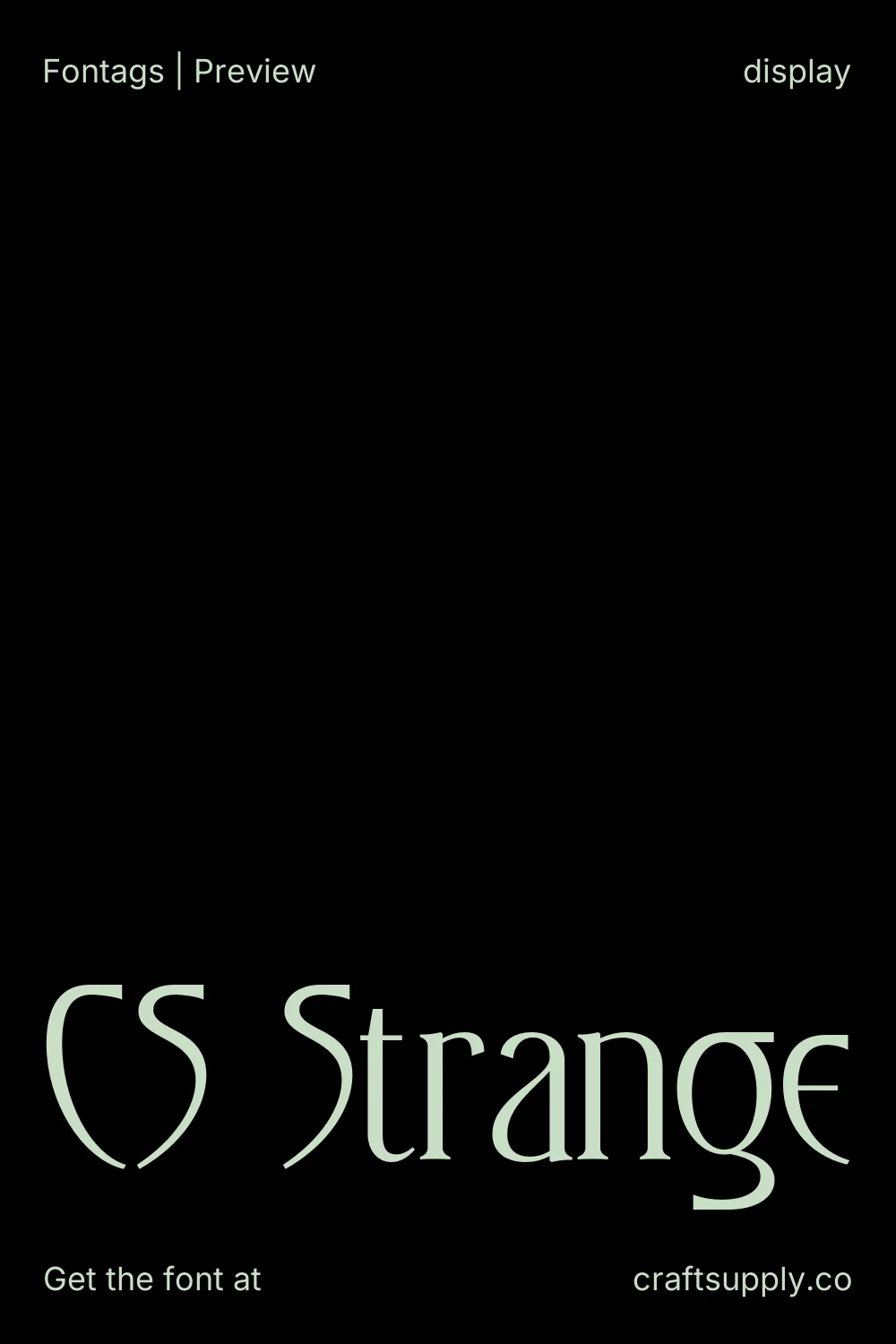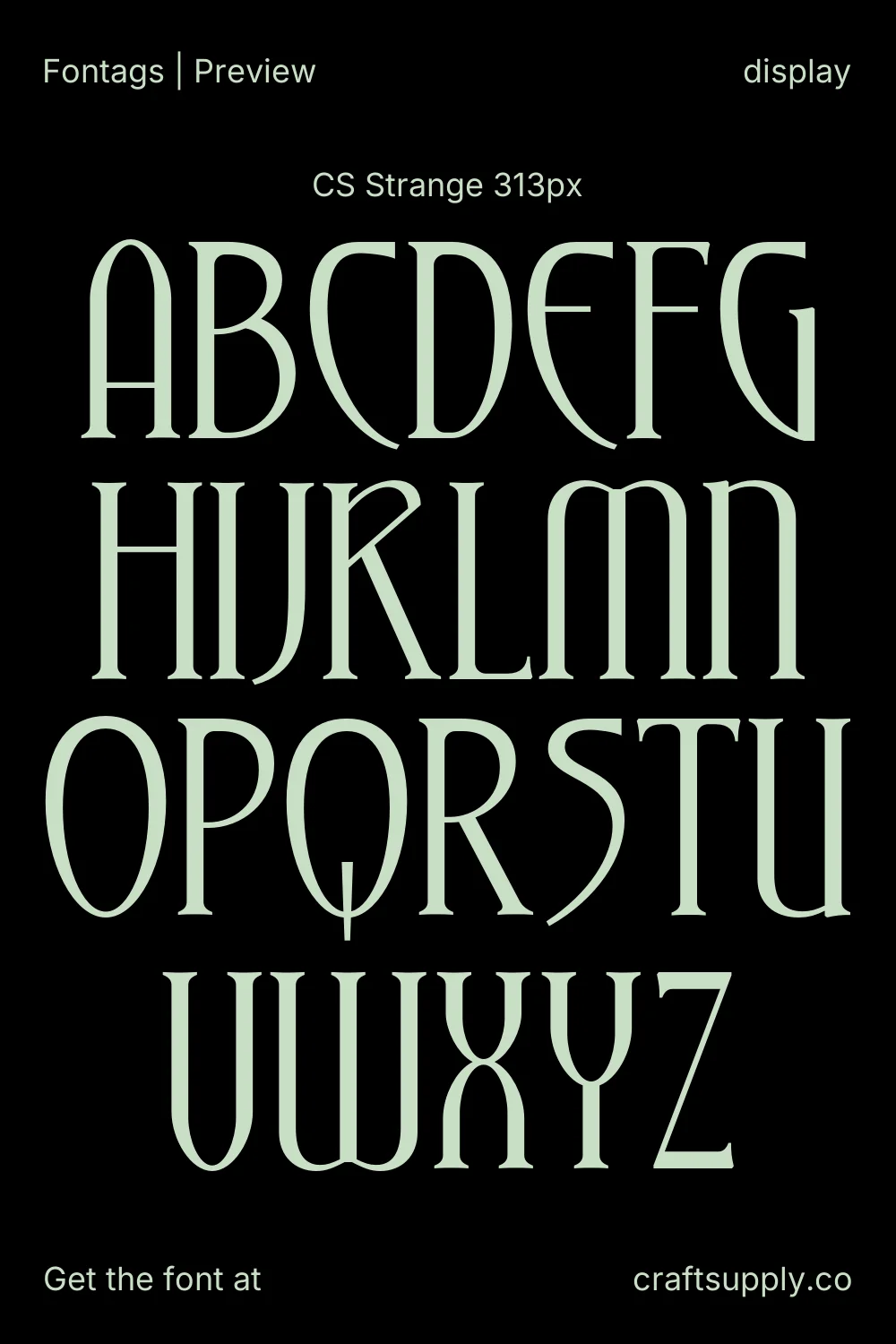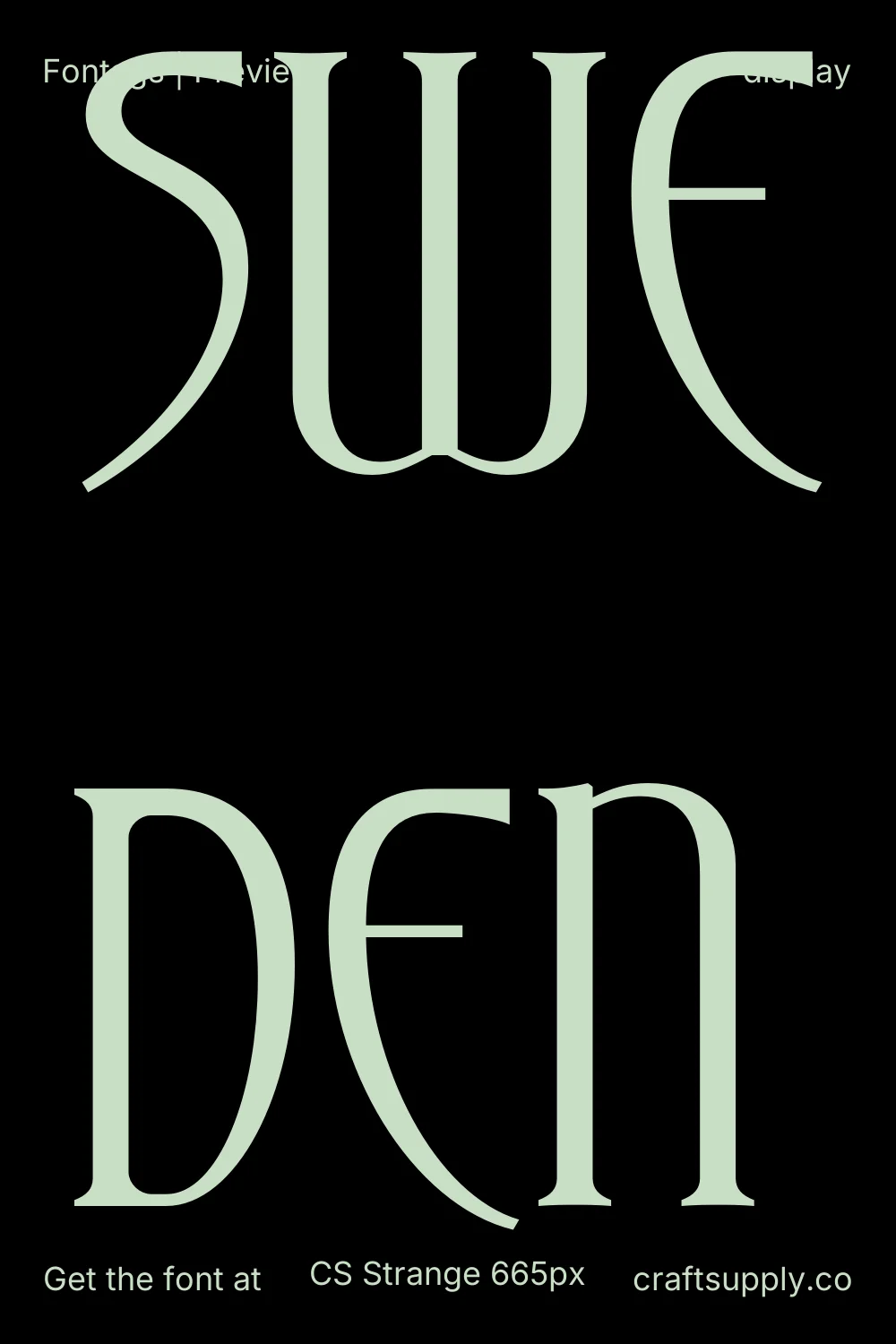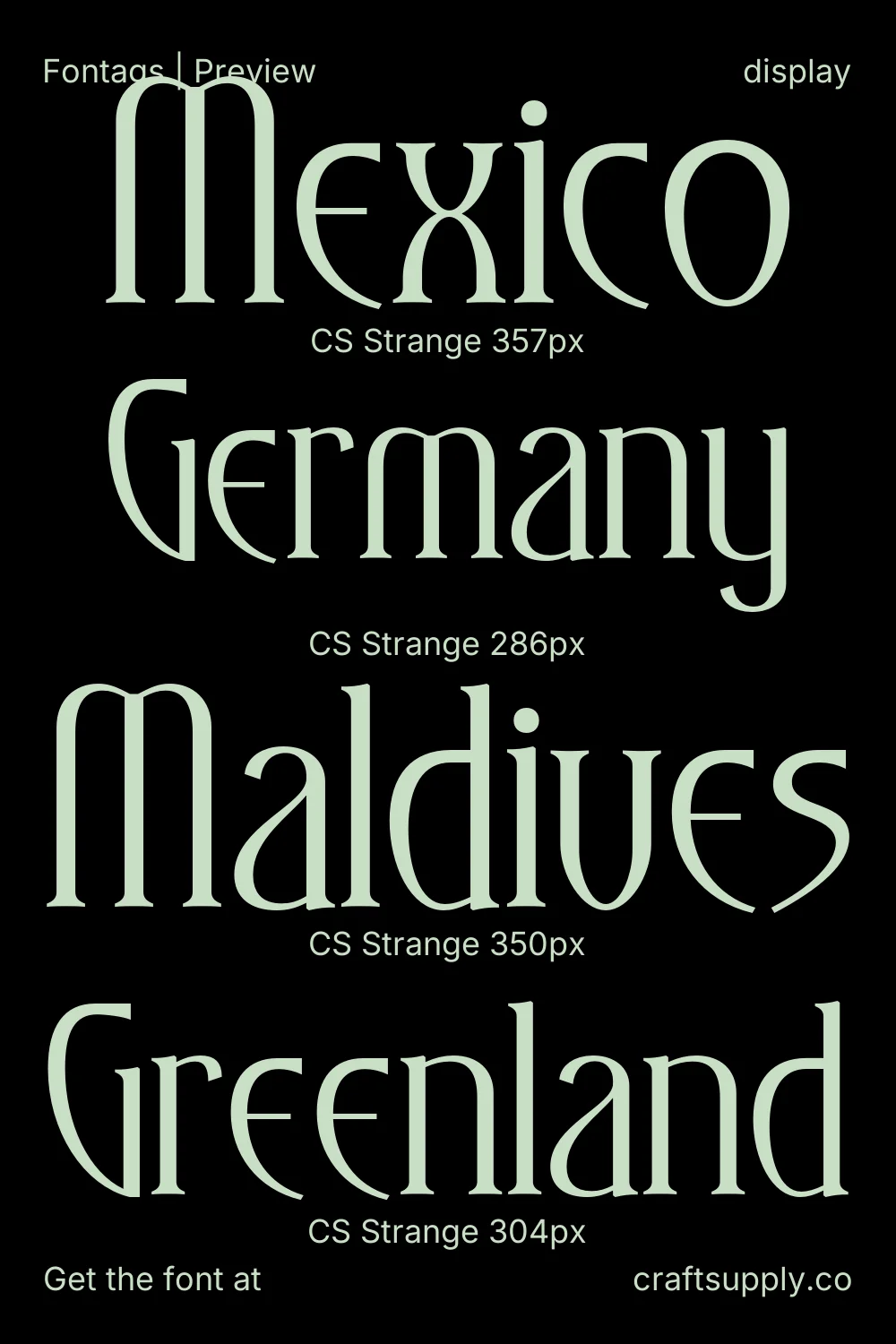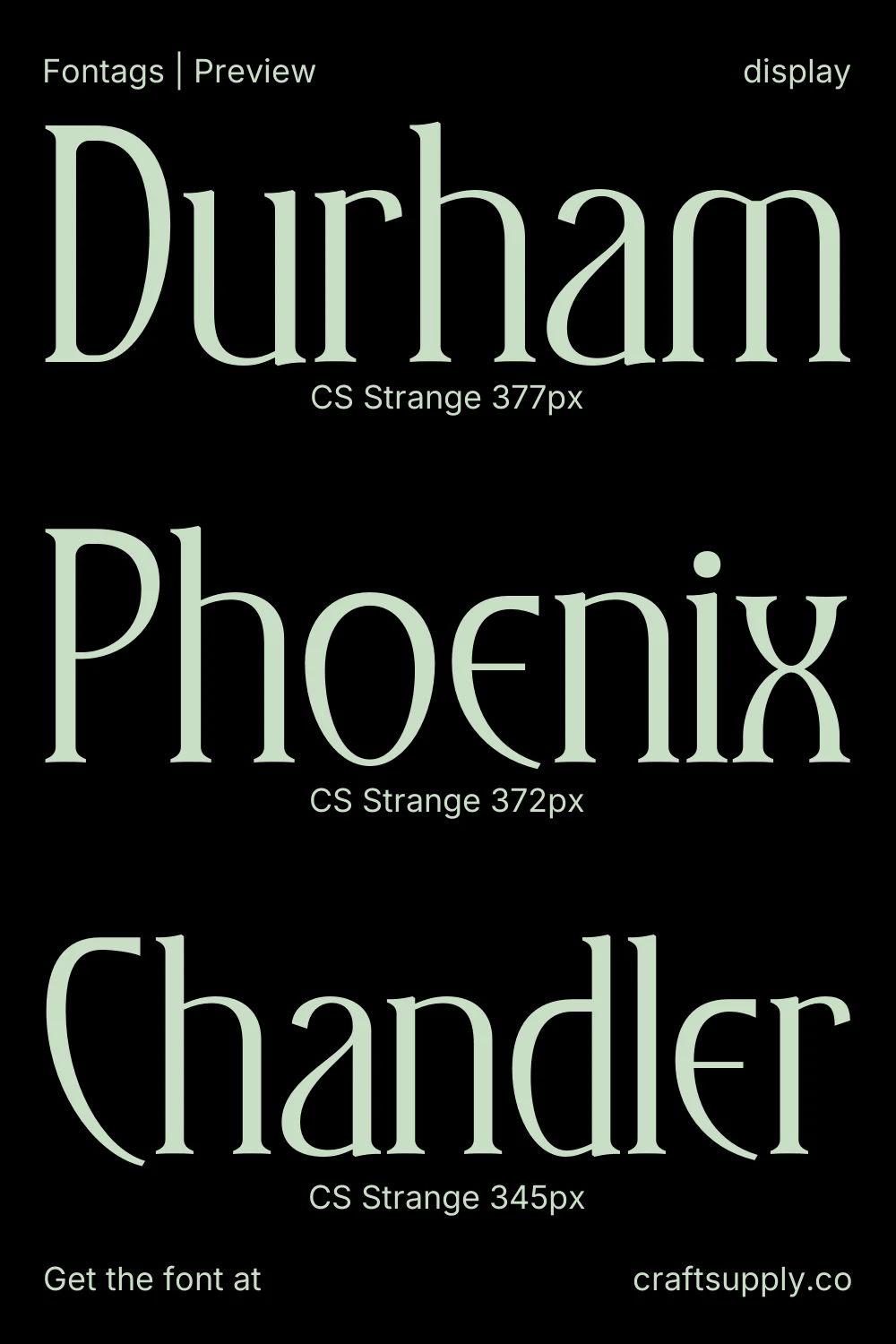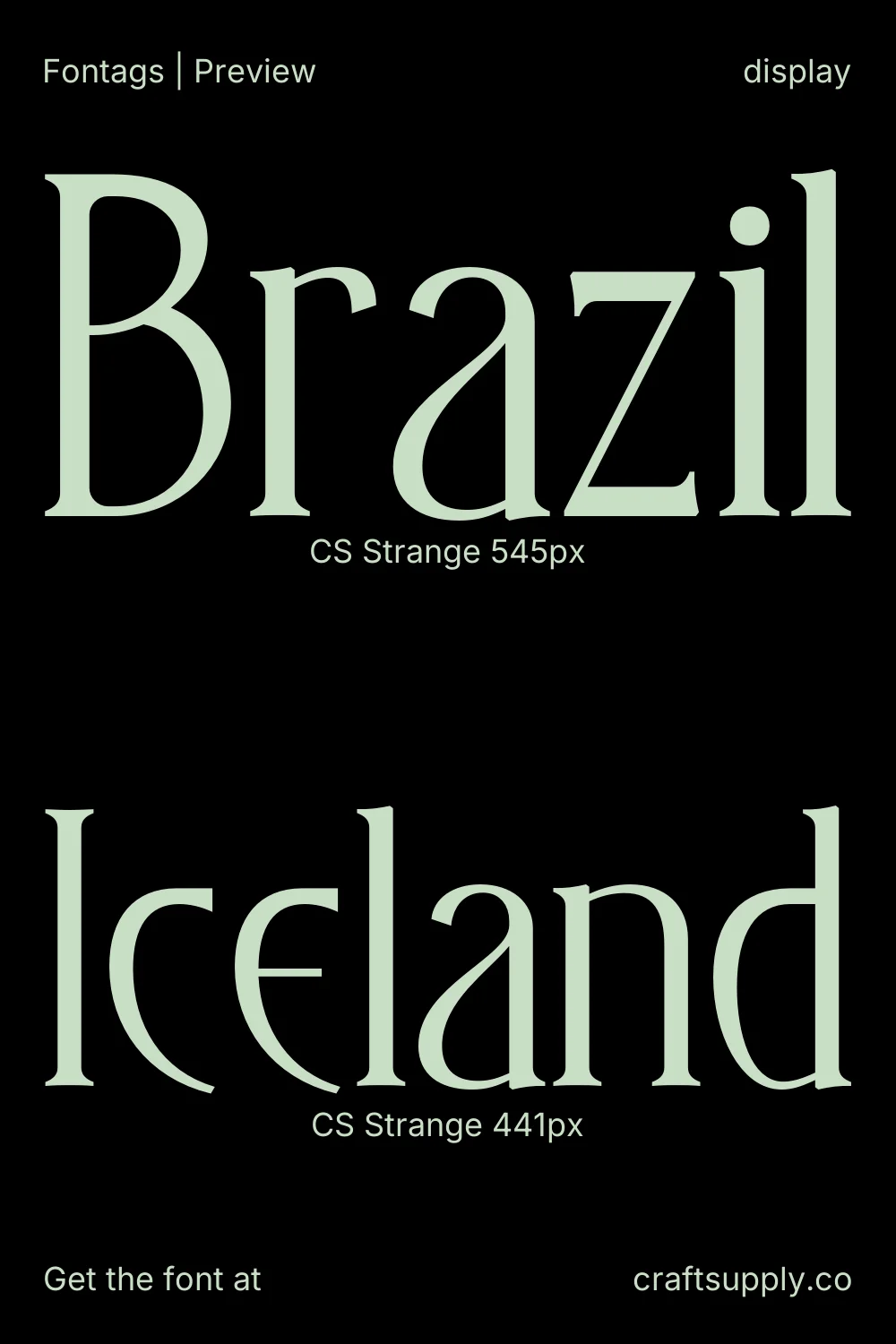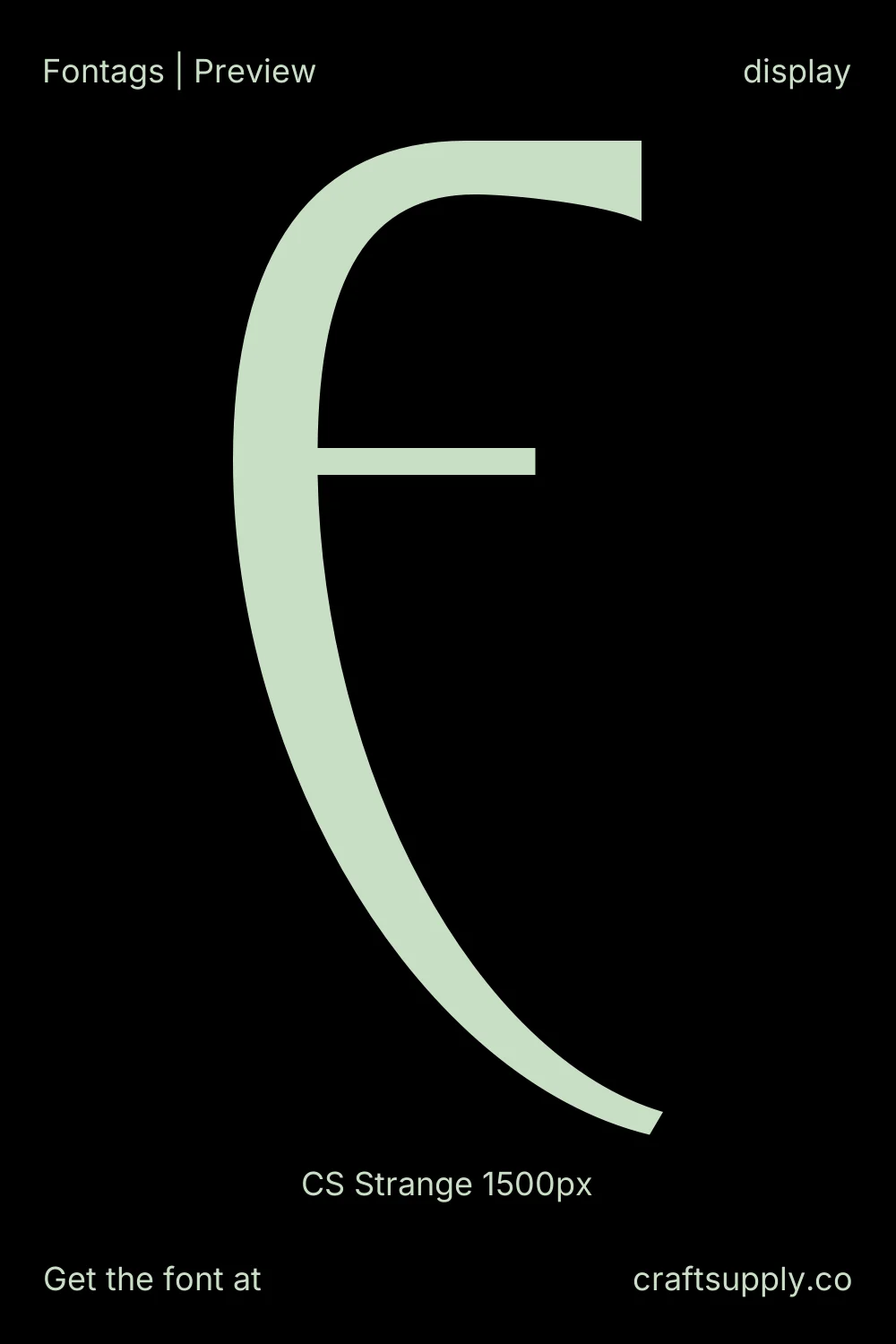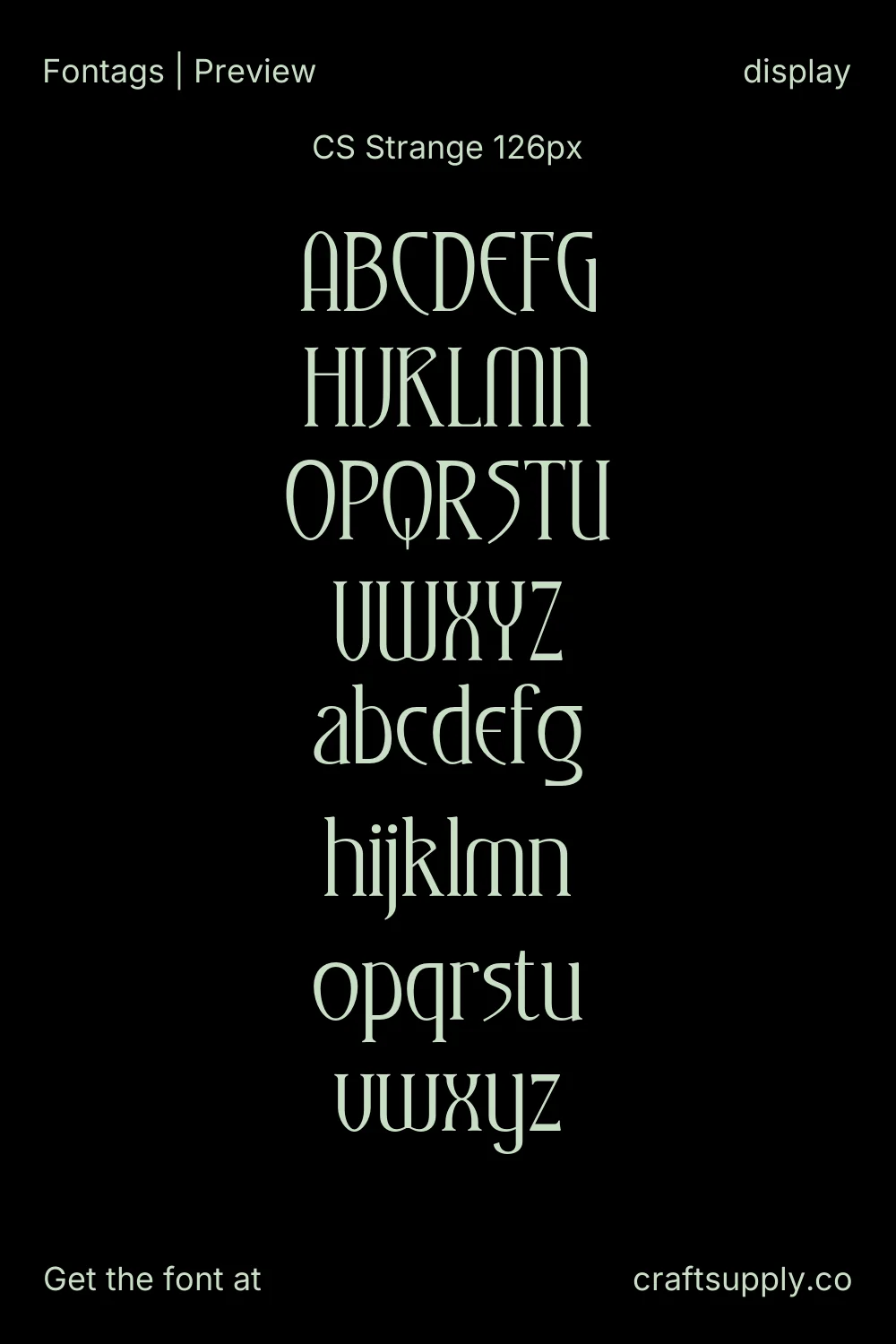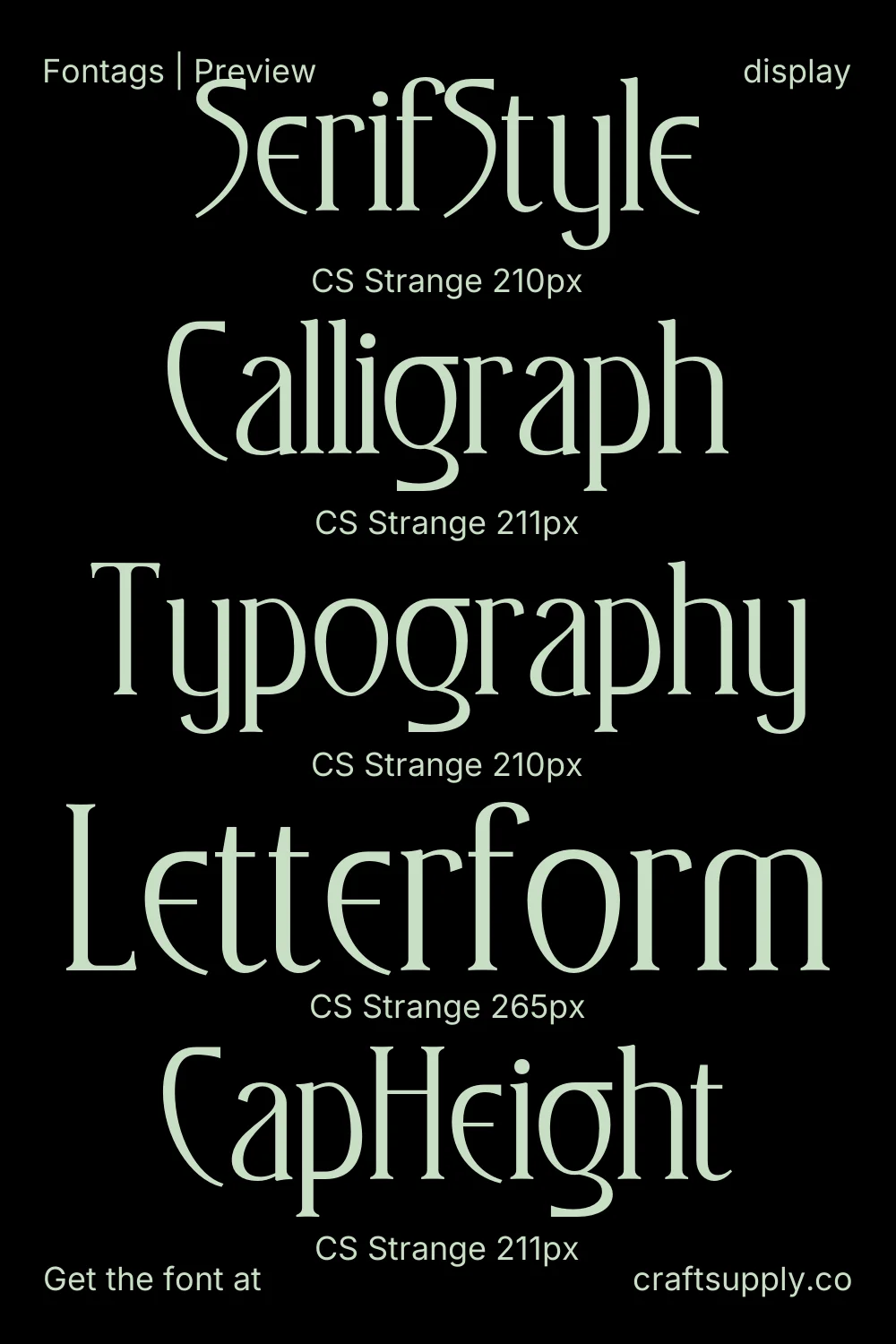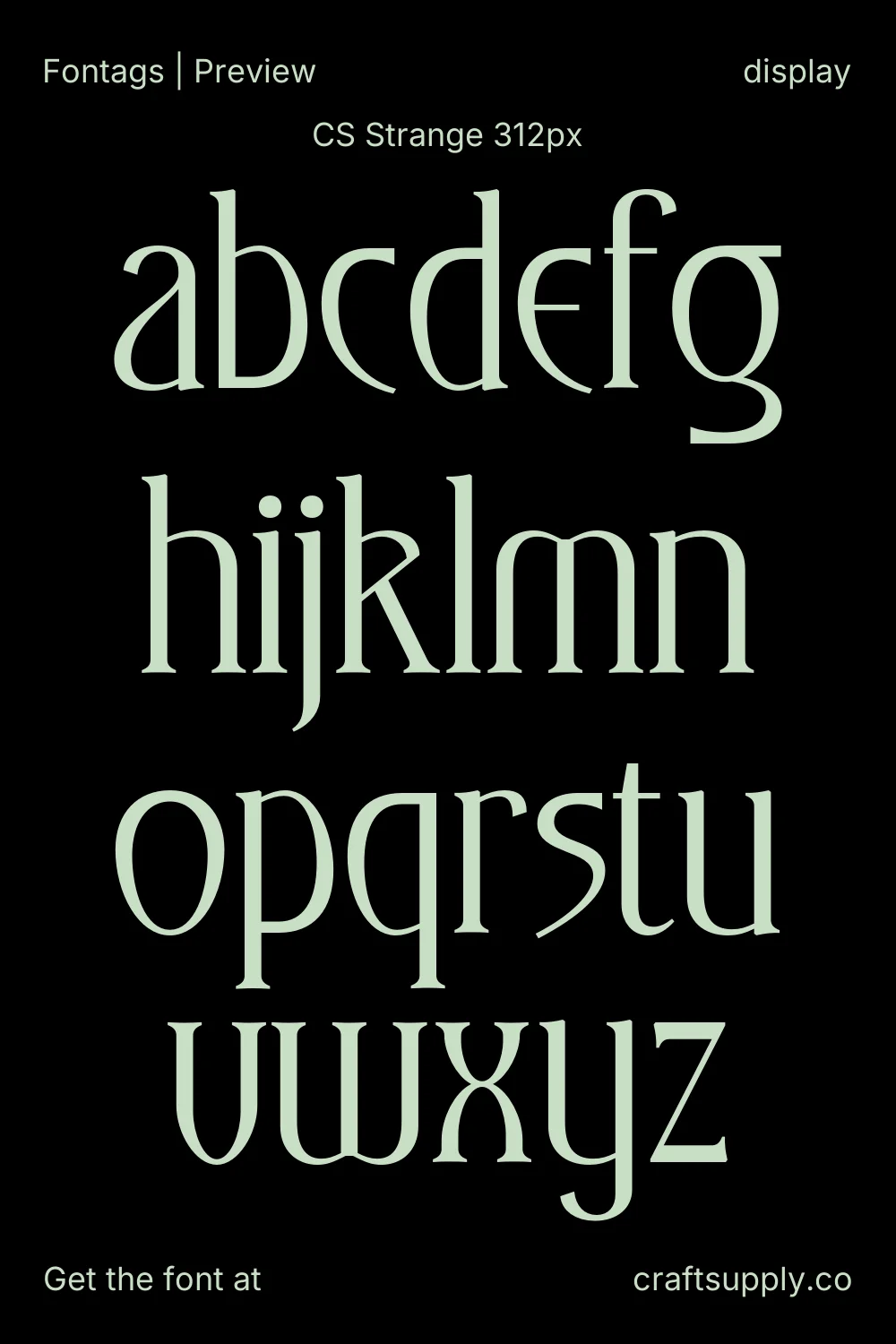
CS Strange
CS Strange is a decorative modern serif with elongated elegance, blending contemporary sophistication with ornamental detail. Its extended letterforms create a dramatic rhythm, ideal for headlines, posters, editorial designs, and branding. This typeface balances refined structure with artistic flair for a luxurious, eye-catching presence.